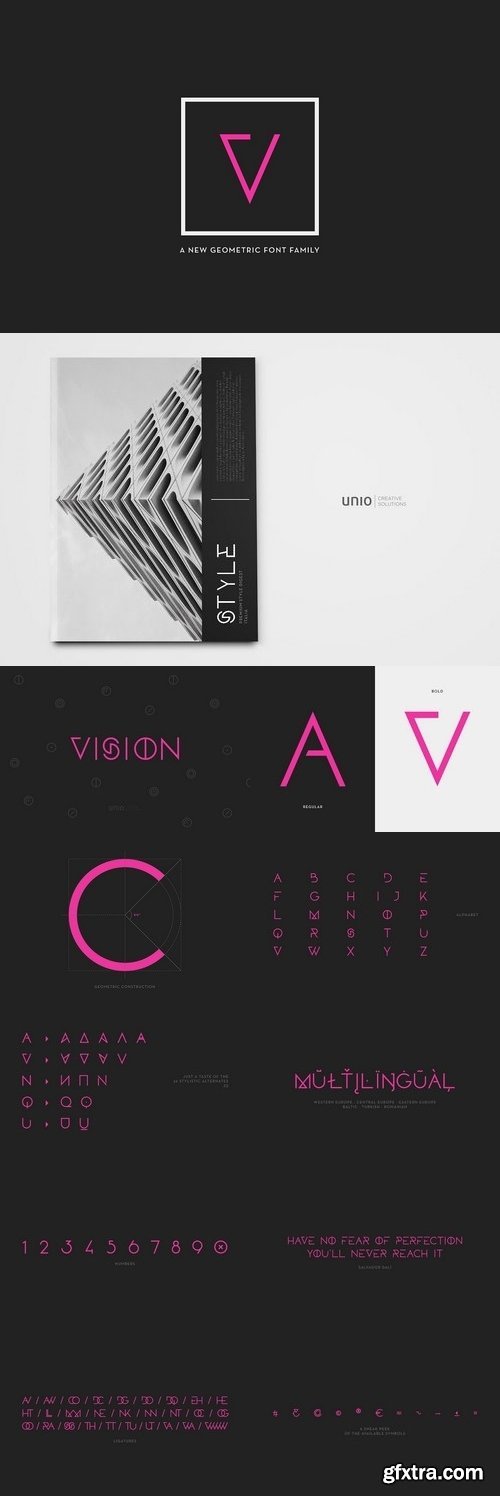
CM - Vision - Font Family 1358835
Unio presents “Vision Font Family”. Vision is a contemporary geometric display sans typeface, based on a balanced construction of sharp angles with smooth shapes. With this font we wanted to experiment with letters. In fact the research behind new shapes and different variations of the letterforms has given a futuristic look, ideal for catchy editorial headlines or logotypes. This versatile all caps font family includes more than 430 characters and covers several languages that use the Latin alphabet, completed with an extensive accents and diacritics set. It comes in Regular and Bold weights optimized for maximum adaptability. As a matter of fact each font features 36 attractive alternates and 30 ligatures, which expands the possibilities when composing.